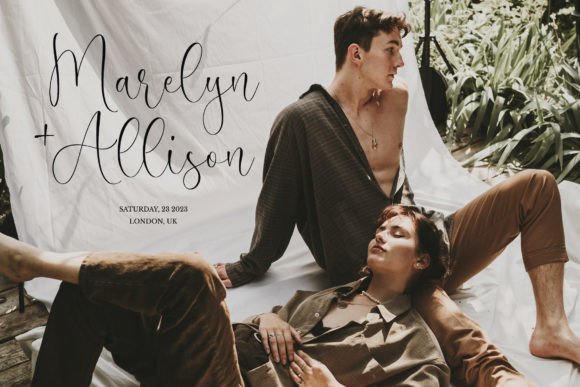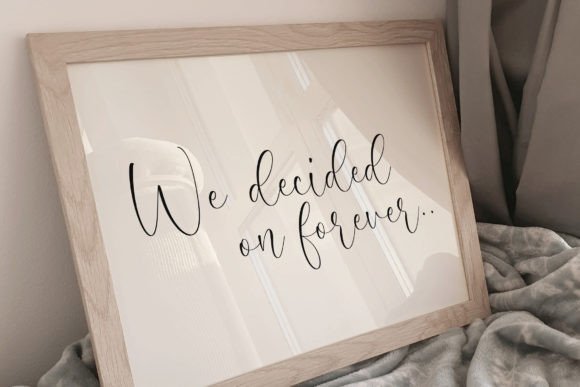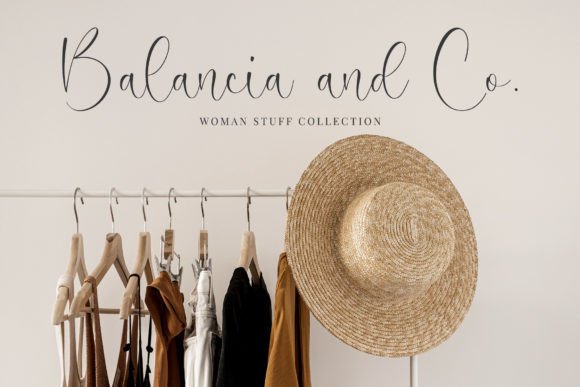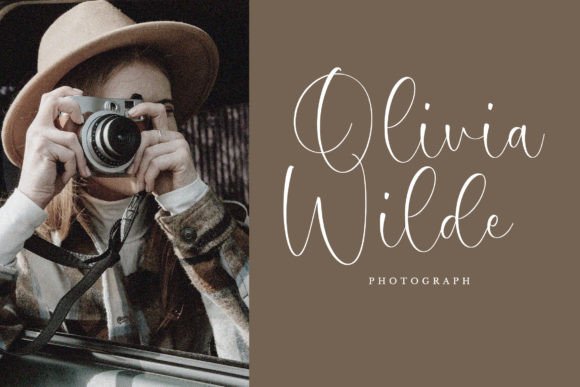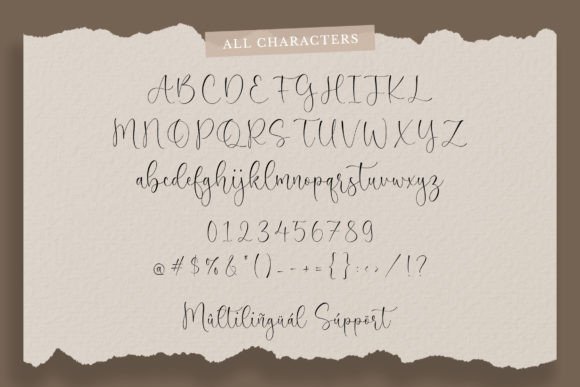
Introducing Amarylis Paradise Font: Elevate Your Designs with Elegance
Are you on the hunt for a font that exudes style, sophistication, and a touch of whimsy? Look no further than Amarylis Paradise, a stunning handwritten script font that’s perfect for a wide range of design projects. From product packaging and branding to magazine layouts, social media graphics, wedding invitations, and more, Amarylis Paradise is the ideal choice for designers and crafters seeking to add a dash of elegance to their work.
The Charm of Amarylis Paradise
Amarylis Paradise is a beautifully crafted handwritten script font that boasts a unique blend of classic charm and modern flair. Its flowing lines, intricate details, and subtle imperfections evoke a sense of hand-crafted elegance, making it perfect for designs that require a personal touch. Whether you’re looking to create eye-catching packaging, develop a cohesive brand identity, or simply add a decorative flourish to your social media graphics, Amarylis Paradise is sure to impress.
Key Features of Amarylis Paradise
- Handwritten Script Font: Amarylis Paradise is a genuine handwritten script font, imbuing your designs with a sense of personality and warmth.
- Stylish and Elegant: With its flowing lines and intricate details, Amarylis Paradise adds a touch of sophistication to any design.
- Versatile: Use Amarylis Paradise for a wide range of projects, from product packaging and branding to magazine layouts, social media graphics, and wedding invitations.
Design Applications for Amarylis Paradise
Amarylis Paradise is an incredibly versatile font that can be used in a variety of design applications, including:
- Product Packaging: Add a touch of elegance to your product packaging with Amarylis Paradise. Perfect for luxury brands, cosmetics, and gourmet food products.
- Branding Projects: Develop a cohesive brand identity with Amarylis Paradise. Use it for logos, business cards, and letterheads to create a lasting impression.
- Magazine Layouts: Add a decorative flourish to your magazine layouts with Amarylis Paradise. Perfect for headings, subheadings, and pull quotes.
- Social Media Graphics: Elevate your social media graphics with Amarylis Paradise. Use it for Instagram posts, Facebook graphics, and Twitter headers.
- Wedding Invitations: Make your wedding invitations truly special with Amarylis Paradise. Perfect for formal and informal wedding stationery.
Tips for Using Amarylis Paradise
To get the most out of Amarylis Paradise, here are a few tips to keep in mind:
- Use it Sparingly: Amarylis Paradise is a decorative font, so use it sparingly to avoid overwhelming your design.
- Pair it with a Simple Font: Pair Amarylis Paradise with a simple font to create visual contrast and make your design more readable.
- Experiment with Colors: Amarylis Paradise looks stunning in a variety of colors. Experiment with different hues and shades to find the perfect match for your design.